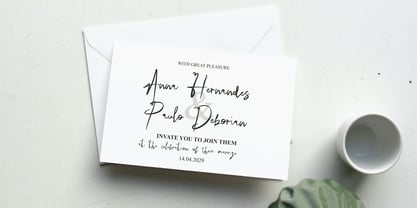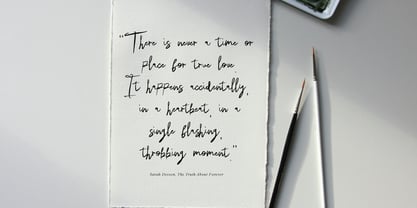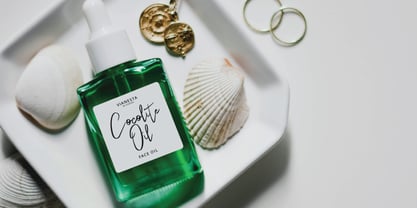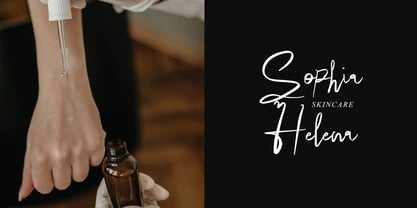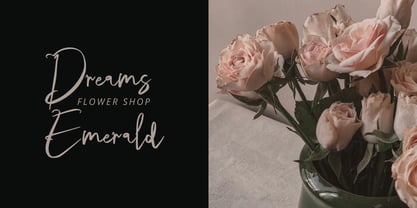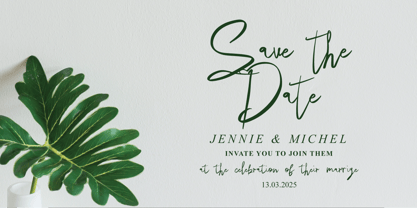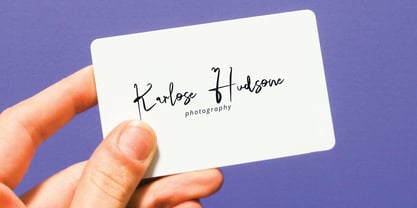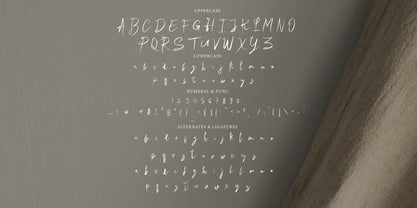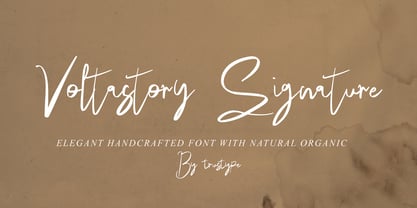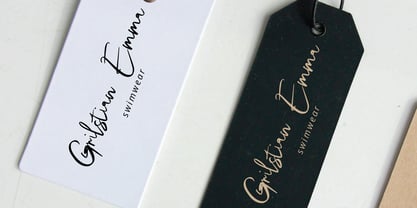
Voltastory Signature
by Pointlab
The Voltastory Signature Font Family was designed by Ferdiansyah and published by Pointlab. Voltastory Signature contains 1 styles. More about this family
Voltastrory Signature with a natural organic, decorative characters and a dancing baseline!
Designers: Ferdiansyah
Foundry: Pointlab